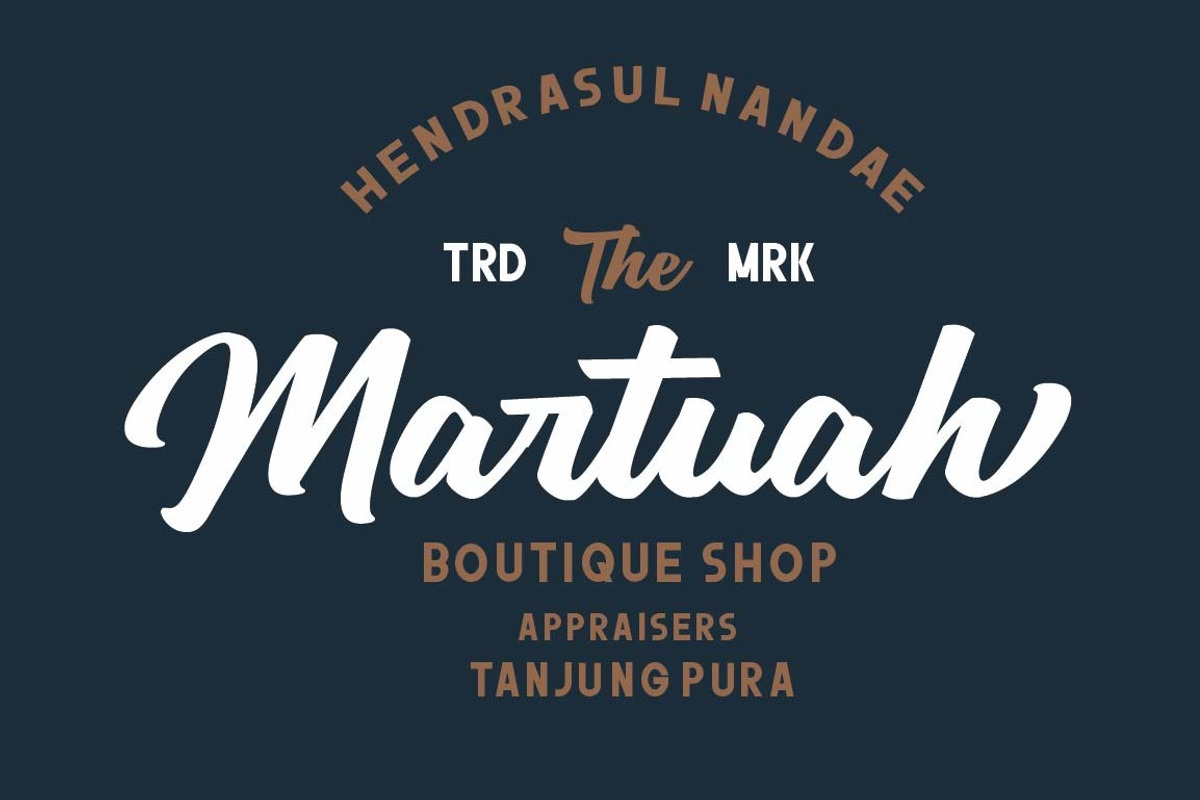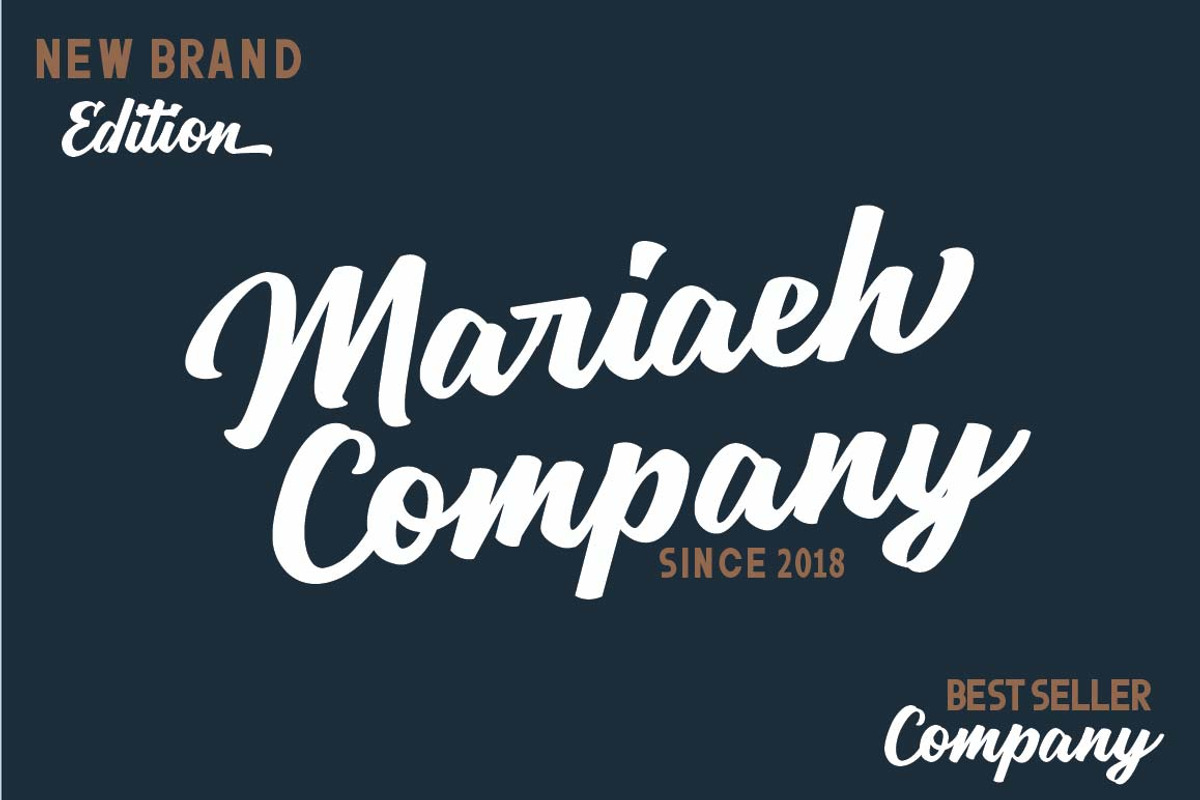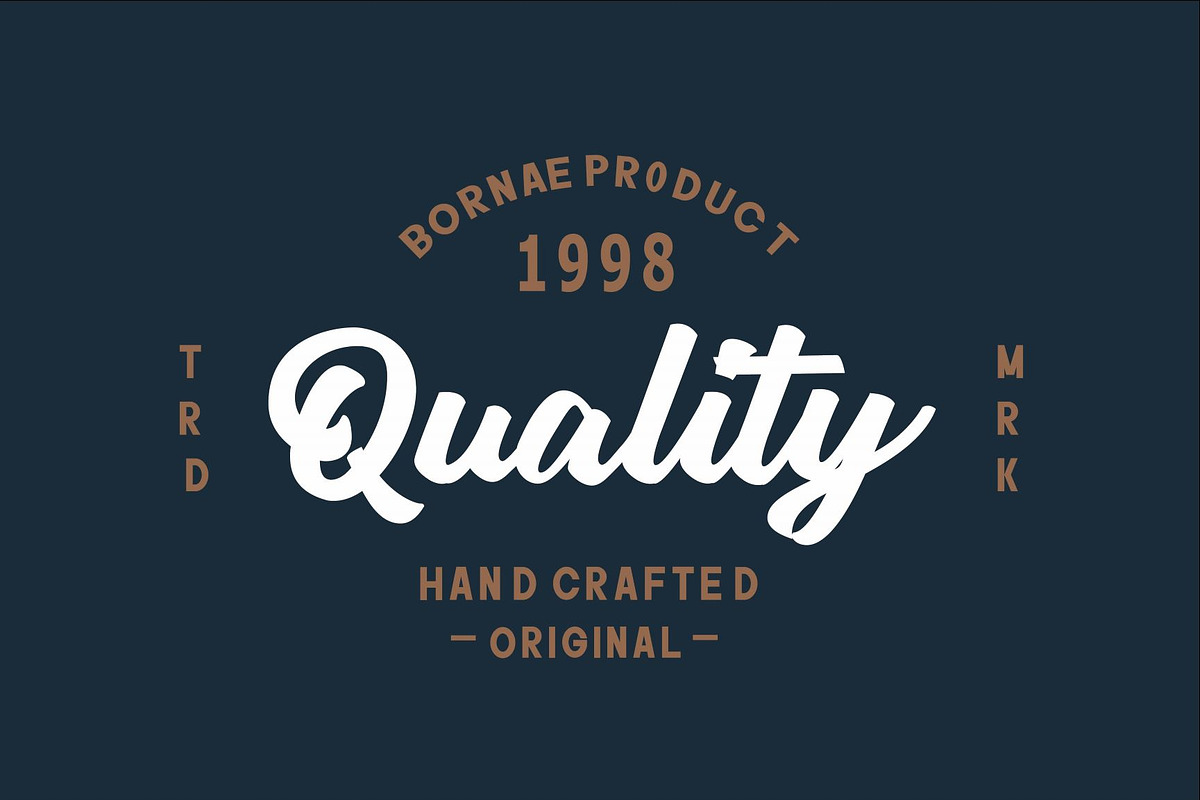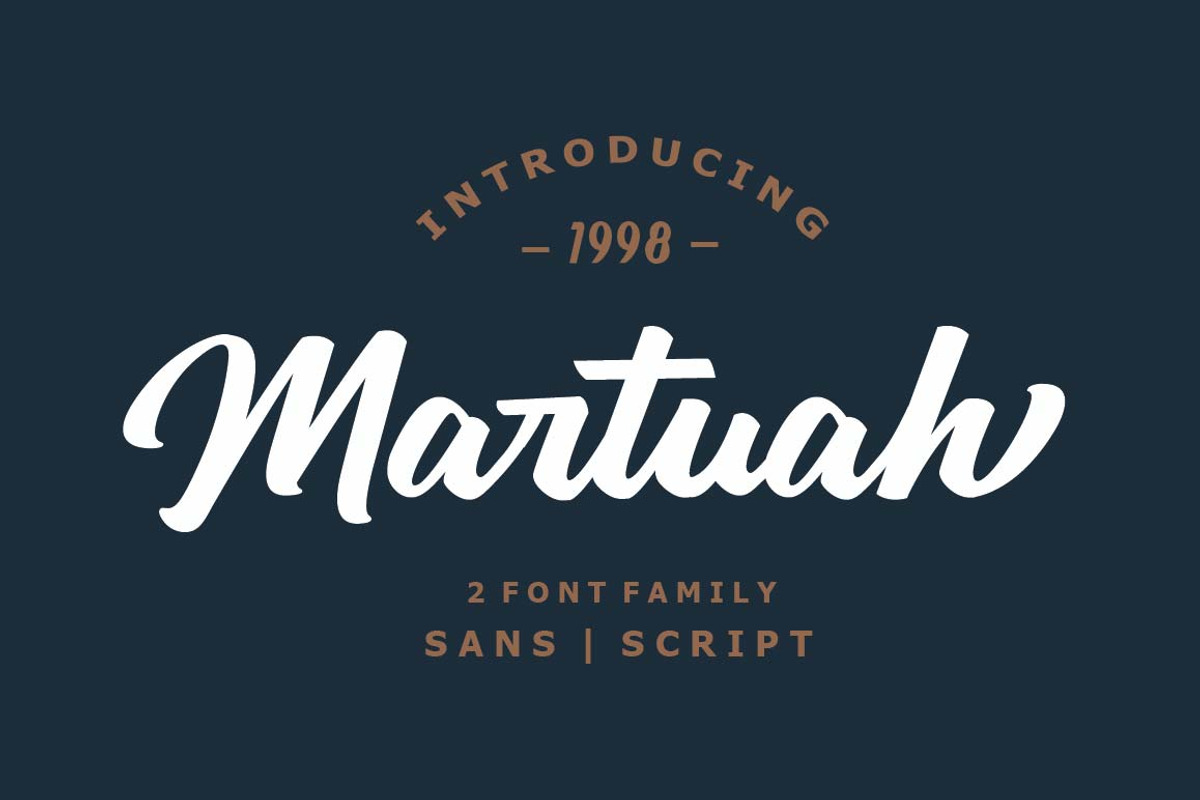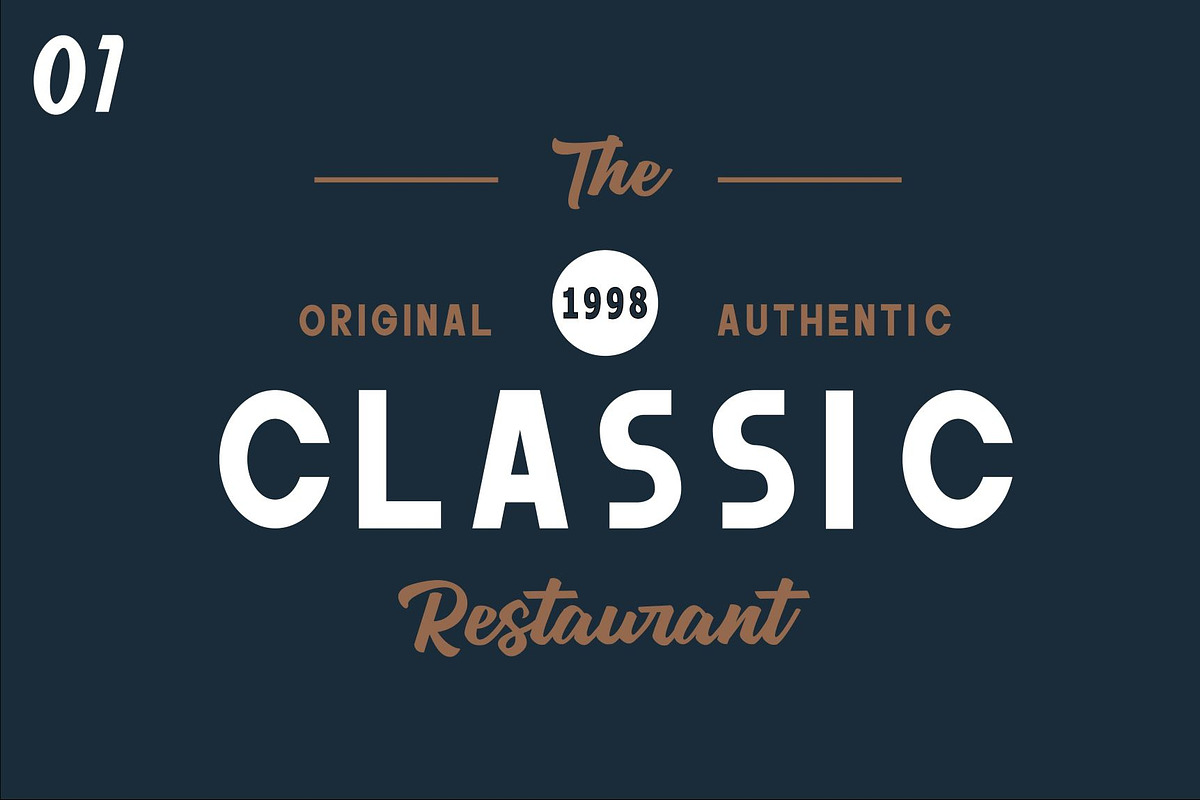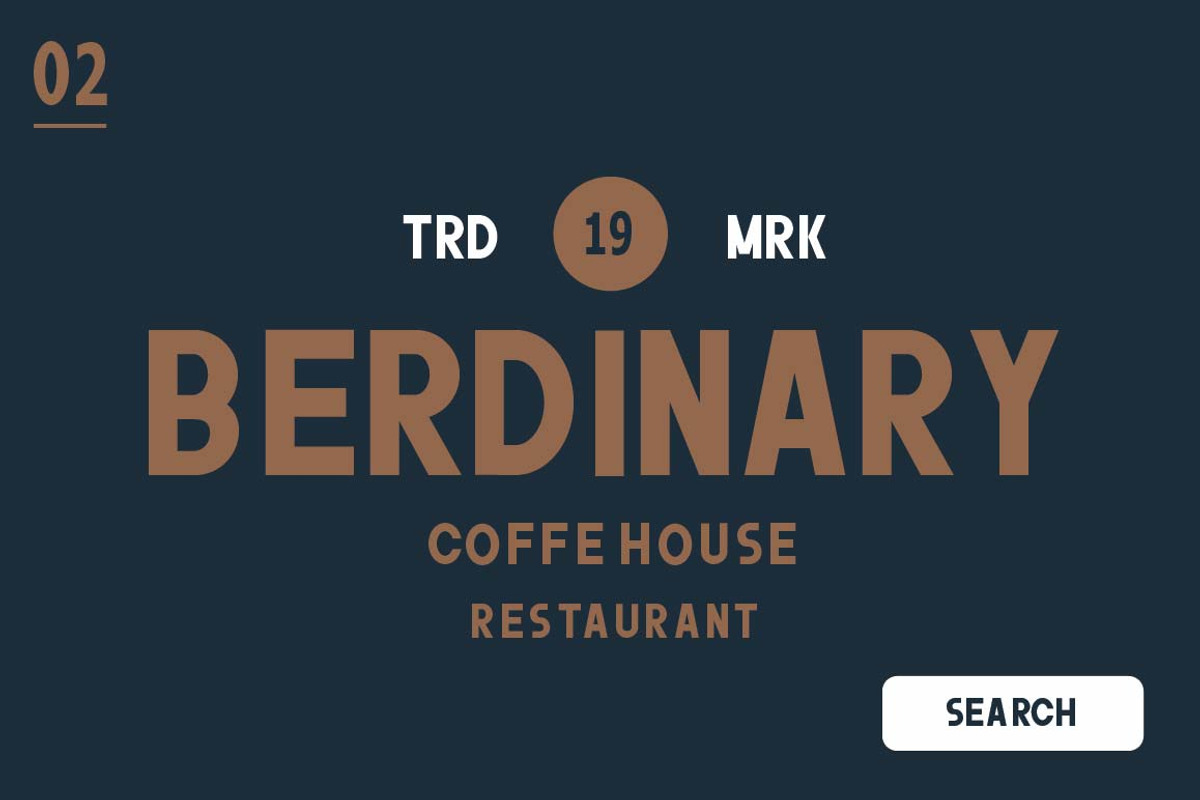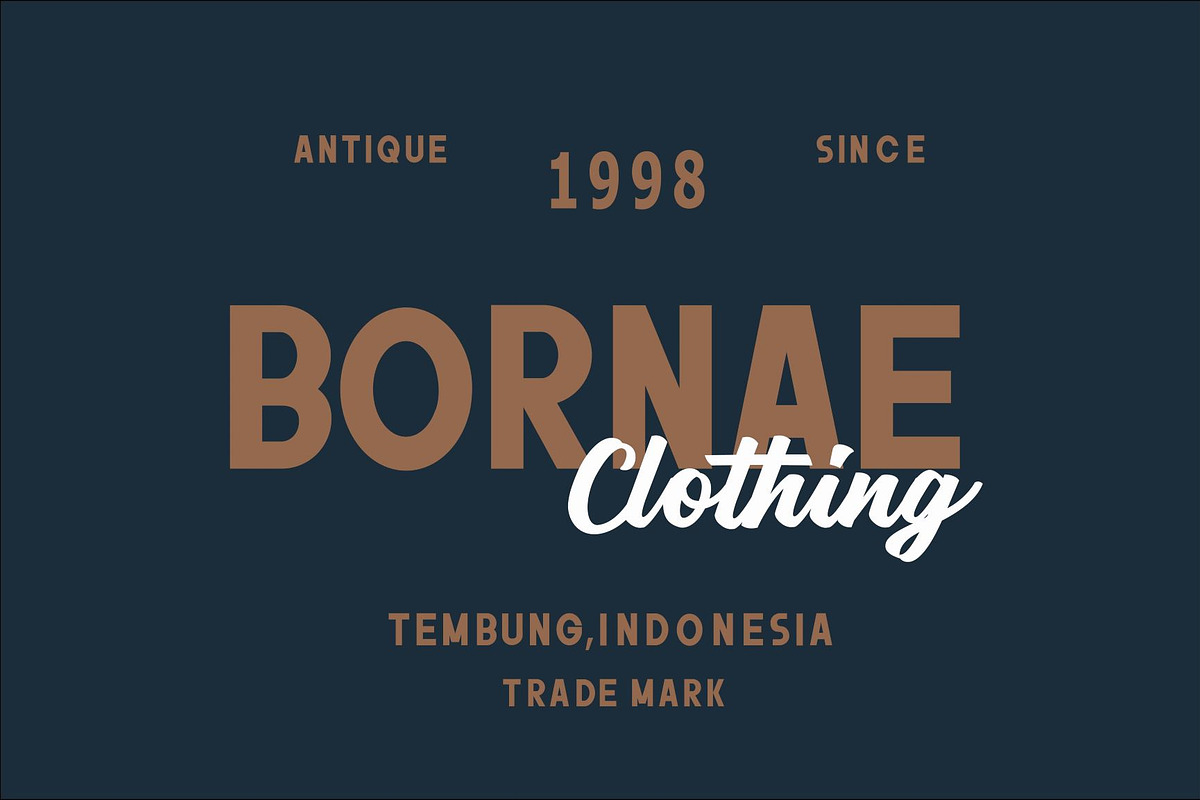
Martuah Font
Hello .. Introducing , this is a Martuah Font. Come with Script + free Sans. Awesome for your design logo, labels, badges, apparel, poster, etc. Martuah comes from Mandailing language, Mandailing is tribe in Indonesia , which means lucky. Thank you and enjoyyy